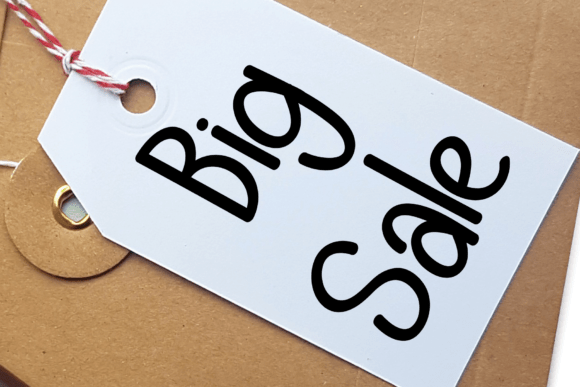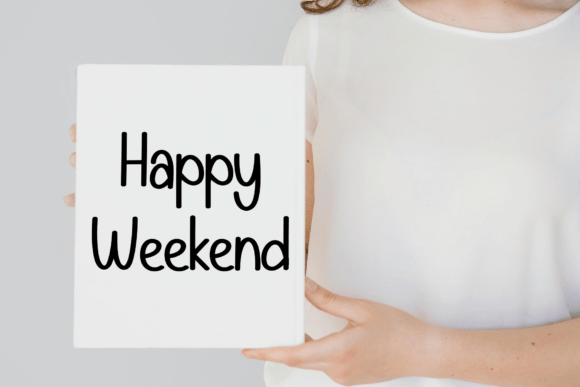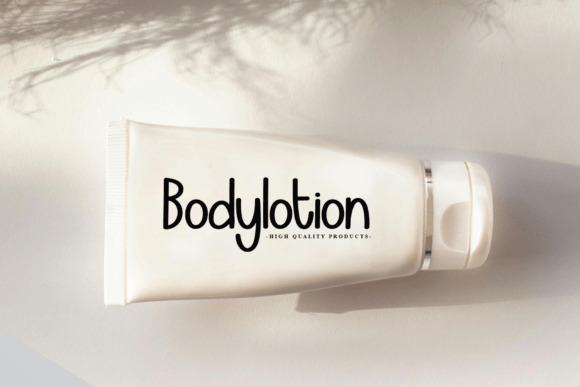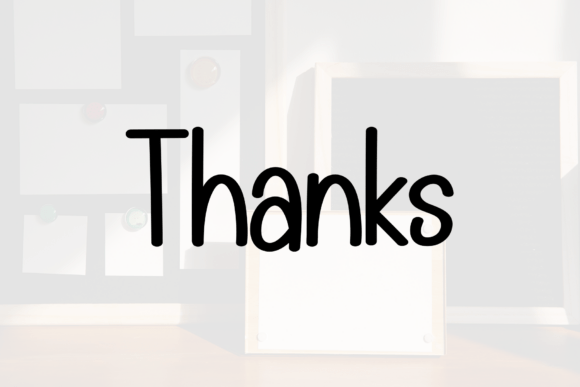
Framhouse Newyear Font: The Perfect Addition to Your Design Arsenal
Are you on the hunt for a font that exudes warmth, friendliness, and a touch of rustic charm? Look no further than Framhouse Newyear, a stunning handwritten display font that’s sure to elevate your designs to the next level. In this article, we’ll dive into the world of Framhouse Newyear, exploring its unique features, uses, and benefits for designers and crafters alike.
A Clean and Friendly Handwritten Font
Framhouse Newyear is a beautifully crafted font that boasts a clean and friendly aesthetic. Its smooth, rounded strokes and tall letterforms give it a distinctive look that’s both elegant and approachable. This font is perfect for creating farmhouse-style quotes, planners, signage, and social media graphics that require a personal touch.
One of the standout features of Framhouse Newyear is its incredible versatility. This font pairs seamlessly with both rustic and modern aesthetics, making it an excellent addition to any design project. Whether you’re creating a vintage-inspired poster or a sleek, modern social media graphic, Framhouse Newyear is sure to bring a warm, personal touch to your work.
Framhouse Newyear is a dream come true for designers and crafters who want to add a touch of personality to their work. This font is ideal for:
• Farmhouse-style quotes and posters
• Planners and organizers
• Signage and display graphics
• Stationery and greeting cards
With Framhouse Newyear, you can create stunning designs that are sure to capture the attention of your audience.
Why Choose Framhouse Newyear?
So, what sets Framhouse Newyear apart from other fonts? Here are just a few reasons why designers and crafters love this font:
• Unique and distinctive look: Framhouse Newyear has a one-of-a-kind aesthetic that’s sure to make your designs stand out.
• Easy to read: The smooth, rounded strokes and clear letterforms make Framhouse Newyear easy to read, even at smaller sizes.
• Versatile: This font pairs well with a wide range of design styles, from rustic to modern.
• Warm and inviting: Framhouse Newyear has a warm, personal touch that’s sure to make your designs feel more approachable and engaging.
Tips for Using Framhouse Newyear
To get the most out of Framhouse Newyear, here are a few tips to keep in mind:
• Use it as a display font: Framhouse Newyear is perfect for headlines, titles, and display graphics.
• Pair it with complementary fonts: Try pairing Framhouse Newyear with clean, sans-serif fonts for a striking contrast.
• Experiment with colors: Framhouse Newyear looks great in a range of colors, from earthy tones to bold brights.
Framhouse Newyear is a beautiful, versatile font that’s sure to become a staple in your design arsenal. With its clean, friendly aesthetic and warm, inviting vibe, this font is perfect for designers and crafters who want to add a personal touch to their work. Whether you’re creating farmhouse-style quotes, planners, signage, or social media graphics, Framhouse Newyear is the perfect choice. So why wait? Download Framhouse Newyear today and start creating stunning designs that capture the hearts of your audience!